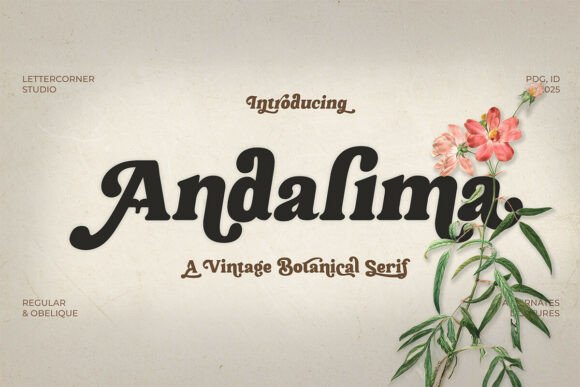
The Elegant Charm of Andalima Font: A Designer’s Delight
I still remember the design project that led me to discover the beautiful Andalima font. I was working on a branding project for a crafty client who specialized in handmade jewelry. The goal was to create a sophisticated yet approachable visual identity that reflected the client’s passion for artisanal craftsmanship. As I scoured the internet for the perfect font, I stumbled upon Andalima, and it instantly captured my heart.
Andalima is an elegant vintage serif inspired by classic botanical illustrations and timeless editorial typography. With its graceful curves, organic contrast, and subtly handcrafted details, Andalima brings a warm, nostalgic charm to any design it touches. Designed to feel both refined and natural, Andalima balances decorative personality with excellent readability.
• ✅ Elegant and refined design that’s perfect for high-end branding projects
• ✅ Excellent readability, even at small font sizes
• ✅ Beautifully crafted details, such as gentle serifs and smooth flowing terminals
• ✅ Supports OpenType features, glyphs, and stylistic alternates
• 🤔 May not be the best choice for very bold or attention-grabbing headlines
• 🤔 Limited availability of condensed or expanded font styles
The Story Behind Andalima Font
Andalima was designed with the goal of capturing the essence of old-world print with a modern, curated aesthetic. The font’s creator drew inspiration from classic botanical illustrations and timeless editorial typography, aiming to create a font that would bring a warm, nostalgic charm to any design. The result is a beautifully crafted font that balances decorative personality with excellent readability.
Q: What makes Andalima font unique?
A: Andalima font is unique due to its elegant vintage serif design, organic contrast, and subtly handcrafted details.
Q: Does Andalima font support OpenType features?
A: Yes, Andalima font supports OpenType features, including ligatures, stylistic alternates, and glyphs.
Q: Can I use Andalima font for body text?
A: Yes, Andalima font is designed to be highly readable, making it suitable for body text in addition to headlines and display text.